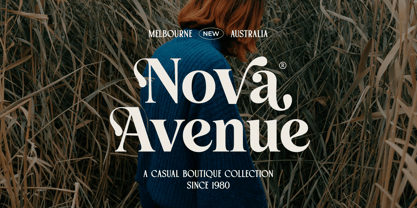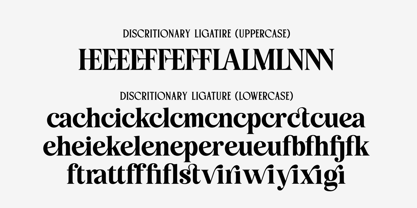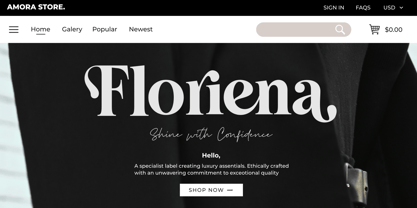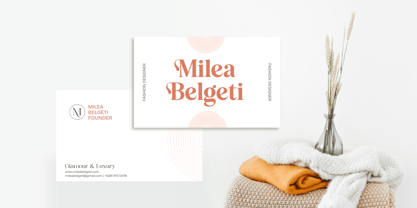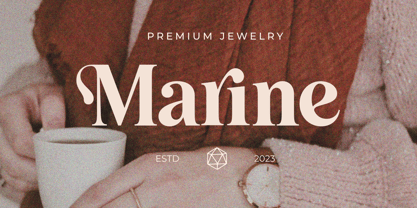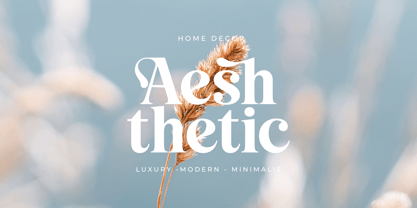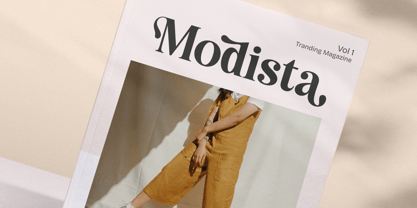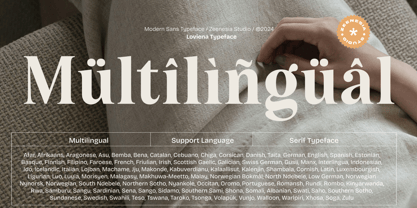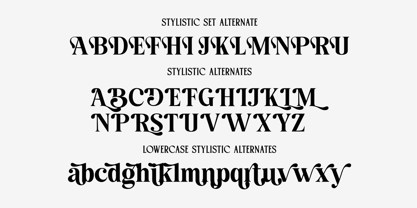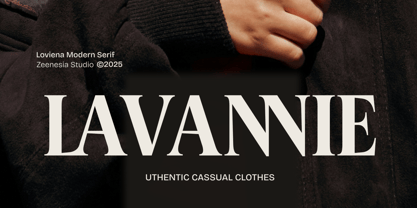
Loviena
by Zeenesia Studio
The Loviena Font Family was designed by Doni Purwoko and published by Zeenesia Studio. Loviena contains 1 styles. More about this family
Loviena is a warm and elegant serif typeface that blends sophistication with approachability. Its refined curves and smooth transitions make it perfect for branding, editorial layouts, and invitations.
Designed for versatility, Loviena offers exceptional readability and supports multilingual characters, making it an ideal choice for creating designs with a timeless, humanistic touch.